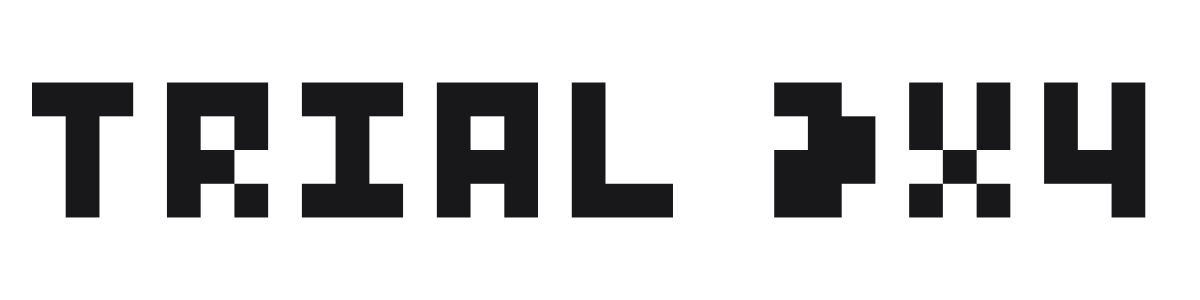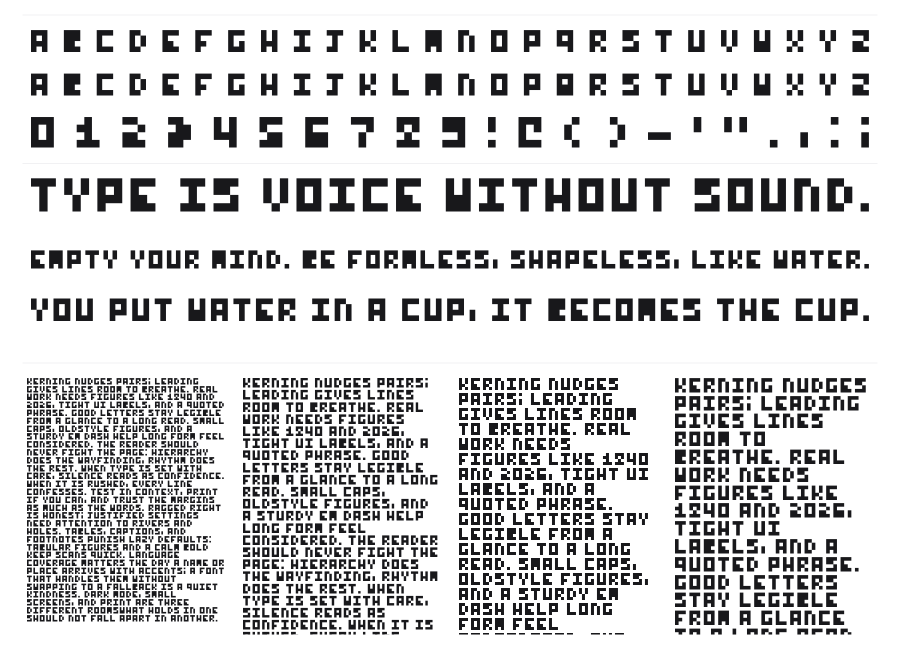
Trial 3x4
by Aidan Levy
Trial 3x4 is a bitmap font where every character fits inside a fixed 3x4 pixel cell. That extreme constraint is the whole concept: the author pushed ASCII coverage as far as possible within a space where most designers would give up. The result is deliberately crude, charmingly lo-fi, and unmistakably pixel-era.